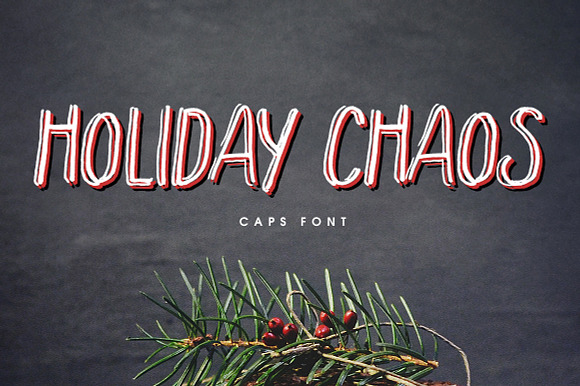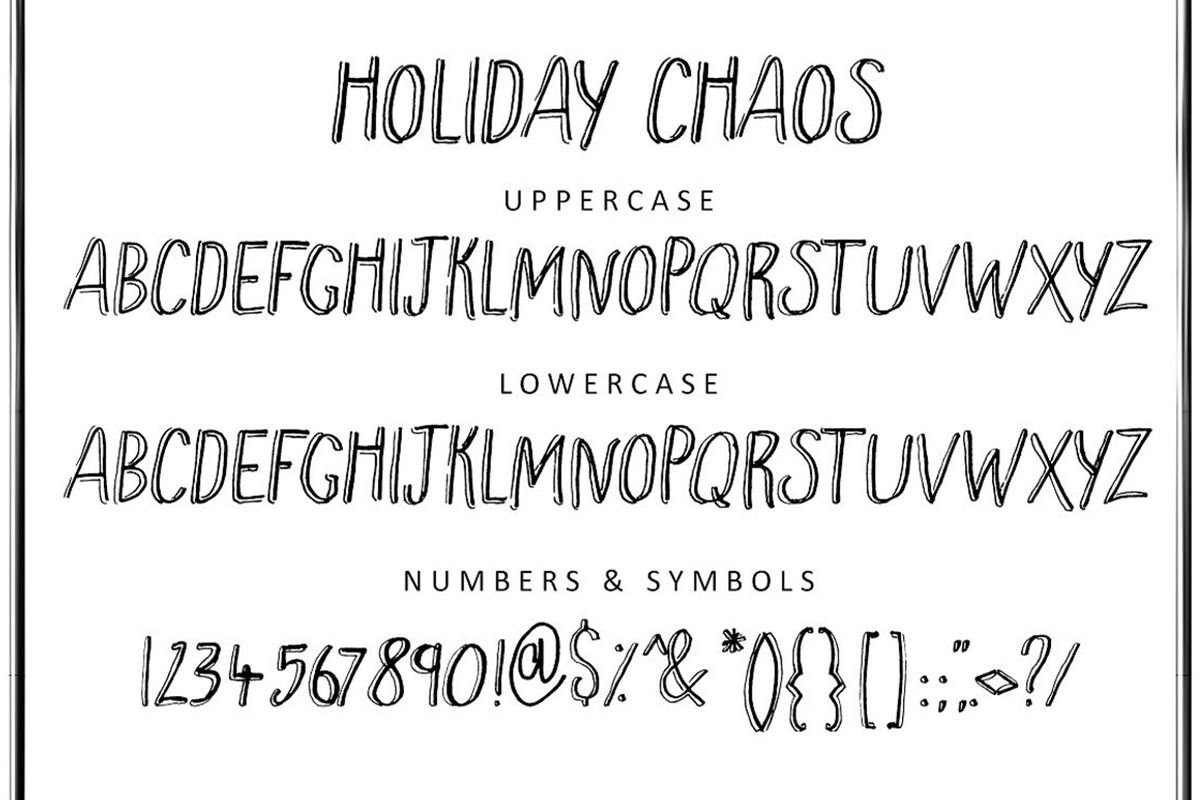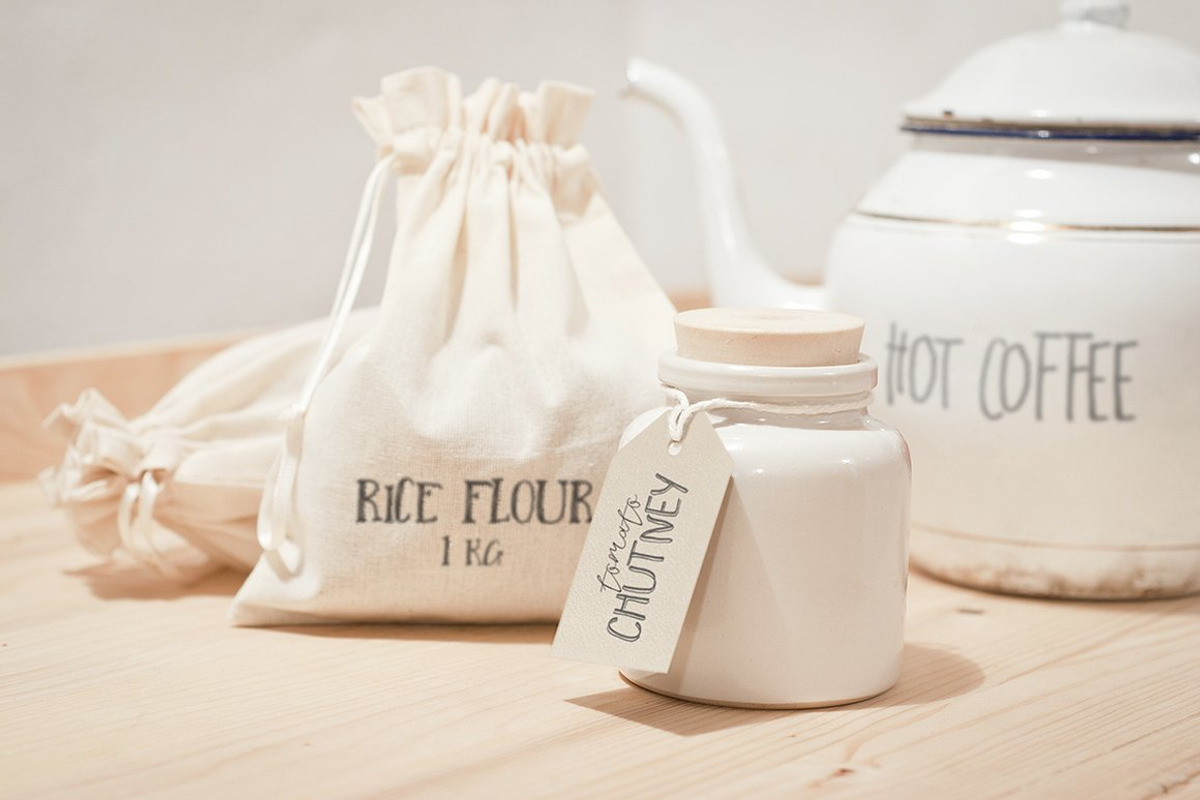
Holiday Chaos Font
This is Holiday Chaos. A trendy all caps marker font. This font is part of the Big Bunch of Fonts Volume 1 here
Why Holiday Chaos Font is worth a look
Holiday Chaos Font by Creativeqube Design fits naturally into Branding, posters, packaging, typography.